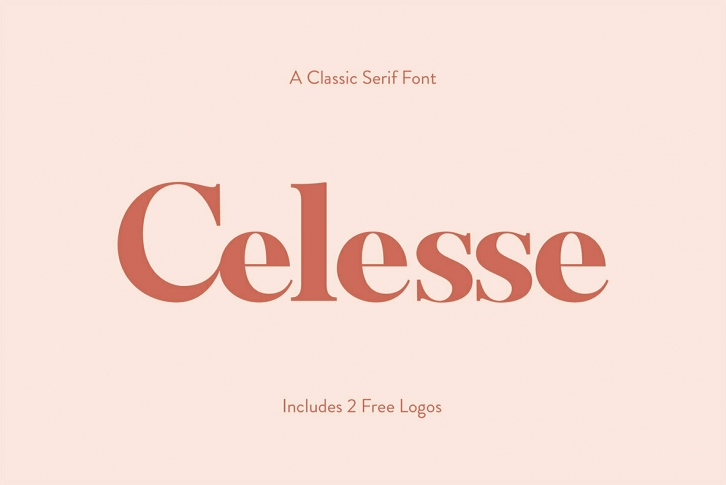
Celesse is a classic serif font, perfect for creating bold & gorgeous designs.
Pour yourself a glass of your finest wine and get classy with Celesse. This font is great for designing elegant logos, quotes, magazine covers, wedding cards, invitations, and brandings. Its stark contrasting lines are best used in headlines and projects with big type. Celesse adds timeless beauty, heavenly curves and a classic appearance to any project.
- 6 Ligatures: ff, fj, fb, fl, fi, fh